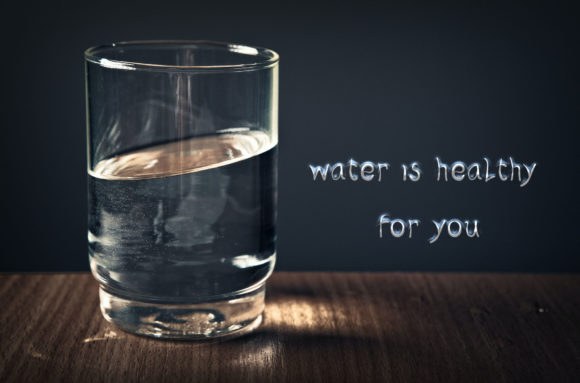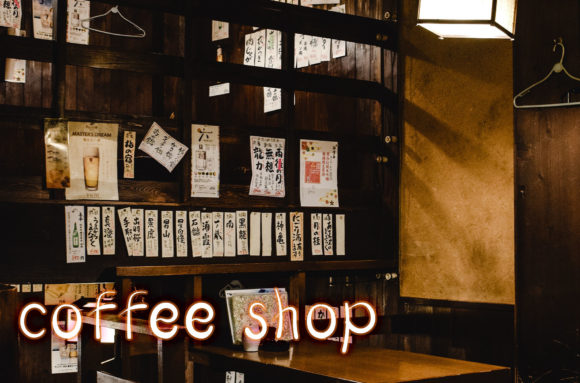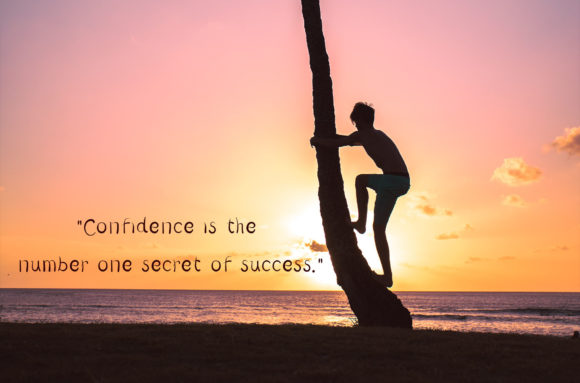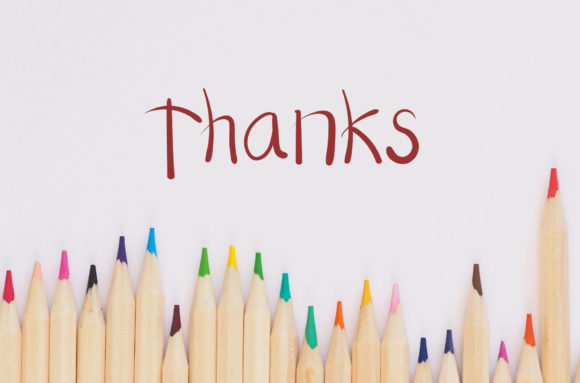
Unleash the Power of Dark Jokes Font: Elevate Your Designs with a Cool and Neat Display Font
Are you tired of using the same old fonts in your designs? Do you want to make your projects stand out from the crowd and leave a lasting impression on your audience? Look no further than Dark Jokes Font, a modern and stylish display font that’s perfect for a wide range of applications. In this article, we’ll explore the features and benefits of Dark Jokes Font, and show you how to use it to take your designs to the next level.
What is Dark Jokes Font?
Dark Jokes Font is a cool and neat display font that’s designed to help you create stunning visual content. Its unique characters and modern typography make it perfect for a variety of projects, including wall displays, wedding invitations, social media posts, logos, advertisements, and more. Whether you’re a designer, crafty DIY enthusiast, or simply someone who loves to create, Dark Jokes Font is the perfect addition to your toolkit.
Key Features of Dark Jokes Font
So, what makes Dark Jokes Font so special? Here are just a few of its key features:
- Unique Characters: Dark Jokes Font features a range of unique and stylish characters that are sure to make your designs stand out.
- Modern Typography: The font’s modern typography is perfect for creating visually appealing designs that are both stylish and effective.
- Versatile: Dark Jokes Font is perfect for a wide range of projects, from wall displays and wedding invitations to social media posts and logos.
- Easily Readable: Despite its unique and stylish design, Dark Jokes Font is still easily readable, making it perfect for both digital and print applications.
- Wall Displays: Use Dark Jokes Font to create eye-catching wall displays that are sure to grab attention.
- Wedding Invitations: Add a touch of elegance and sophistication to your wedding invitations with Dark Jokes Font.
- Social Media Posts: Use Dark Jokes Font to create visually appealing social media posts that are sure to stand out in crowded feeds.
- Logos: Create a unique and memorable logo for your business or brand with Dark Jokes Font.
- Advertisements: Use Dark Jokes Font to create eye-catching advertisements that are sure to grab attention.
Benefits of Using Dark Jokes Font
So, why should you choose Dark Jokes Font for your next project? Here are just a few benefits of using this amazing font:
- Stand Out from the Crowd: Dark Jokes Font is a unique and stylish font that’s sure to make your designs stand out from the crowd.
- Professional-Looking Designs: With Dark Jokes Font, you can create professional-looking designs that are both stylish and effective.
- Easily Customizable: Dark Jokes Font is easily customizable, making it perfect for a wide range of projects and applications.
- Time-Saving: With Dark Jokes Font, you can create stunning designs in no time, saving you time and effort.
In conclusion, Dark Jokes Font is a cool and neat display font that’s perfect for making your designs stand out from the crowd. Its unique characters, modern typography, and versatility make it perfect for a wide range of projects and applications. Whether you’re a designer, crafty DIY enthusiast, or simply someone who loves to create, Dark Jokes Font is the perfect addition to your toolkit. So why wait? Download Dark Jokes Font today and start creating stunning designs that are sure to leave a lasting impression on your audience.